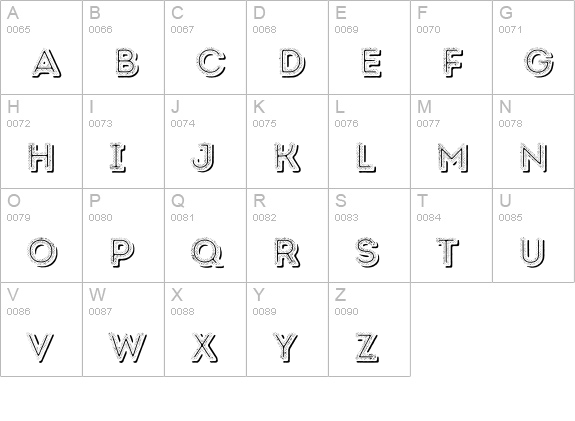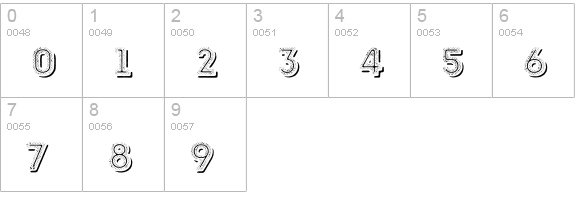
Intro Rust H2 Fill 2 Line Shade Font Details
Intro Rust H2 Fill 2 Line Shade font is a stunning and eye-catching display font that adds a touch of uniqueness to any design. With its intricate details and bold lines, this font is perfect for making a statement and grabbing attention. The two-line shading adds depth and dimension to the text, creating a dynamic and modern look. The best part is that Intro Rust H2 Fill 2 Line Shade font is available for free download at FontsMarket.com. Whether you're working on a branding project, poster design, or any other creative endeavor, this font is sure to make a lasting impression. Don't miss out on the opportunity to add this versatile and stylish font to your collection today!